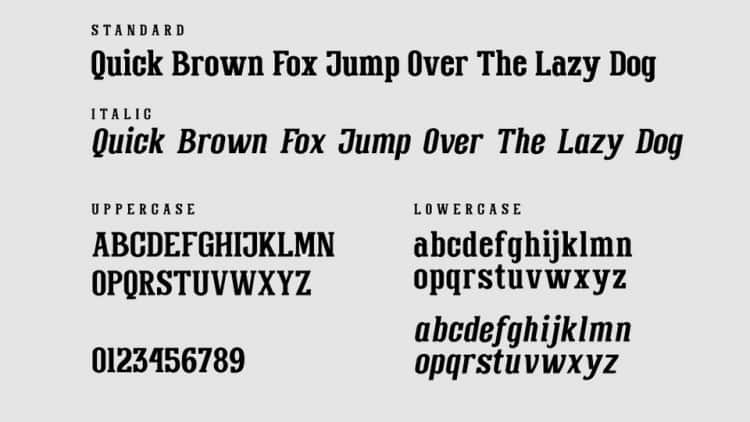
Doland Serif Font is a vintage bold serif typeface created by Typra Studio with contemporary, friendly, and strong emotion. Bold and thick serifs make for strong impact in display uses while its delicate rounded rectangular structure is naturally adapted to text blocks.